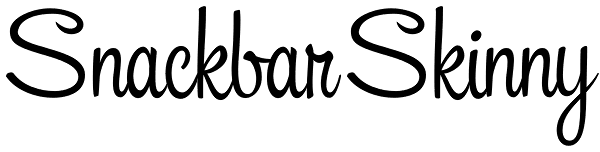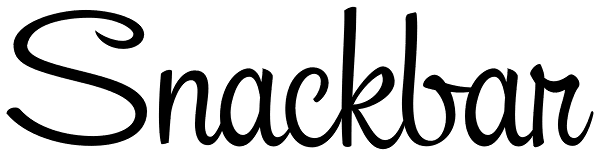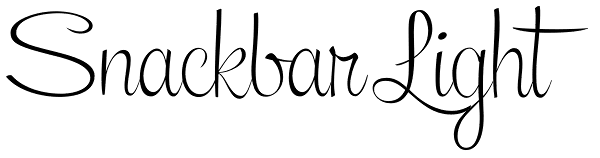
Snackbar
Looking for something fresh and tasty? Head on over to the Snackbar for the All-You-Can-Eat Script Font Buffet! We're piling it high and slicing it thick with our exclusive ALL-IN-ONE family dinner package. For one low price you get THREE main...